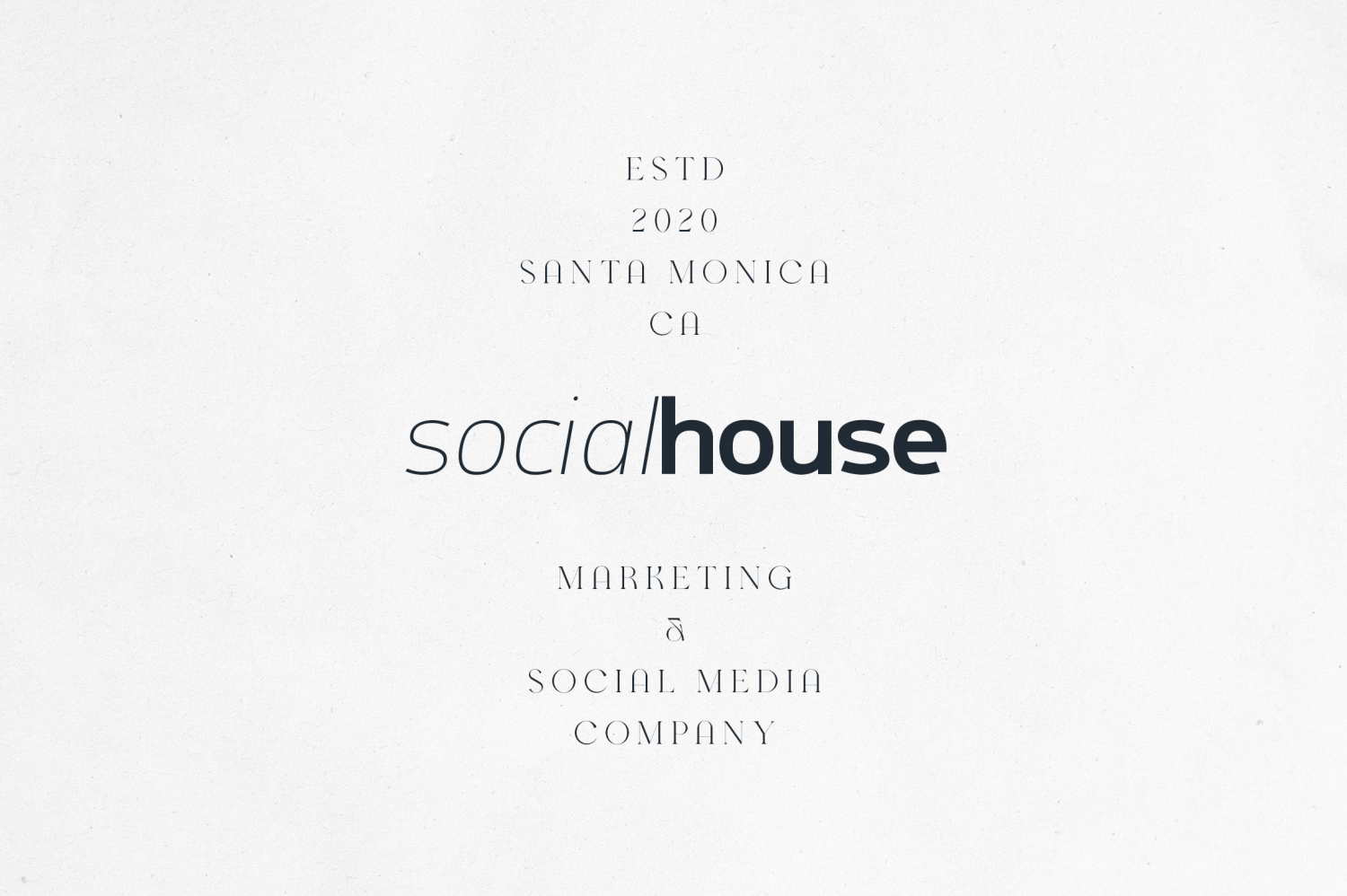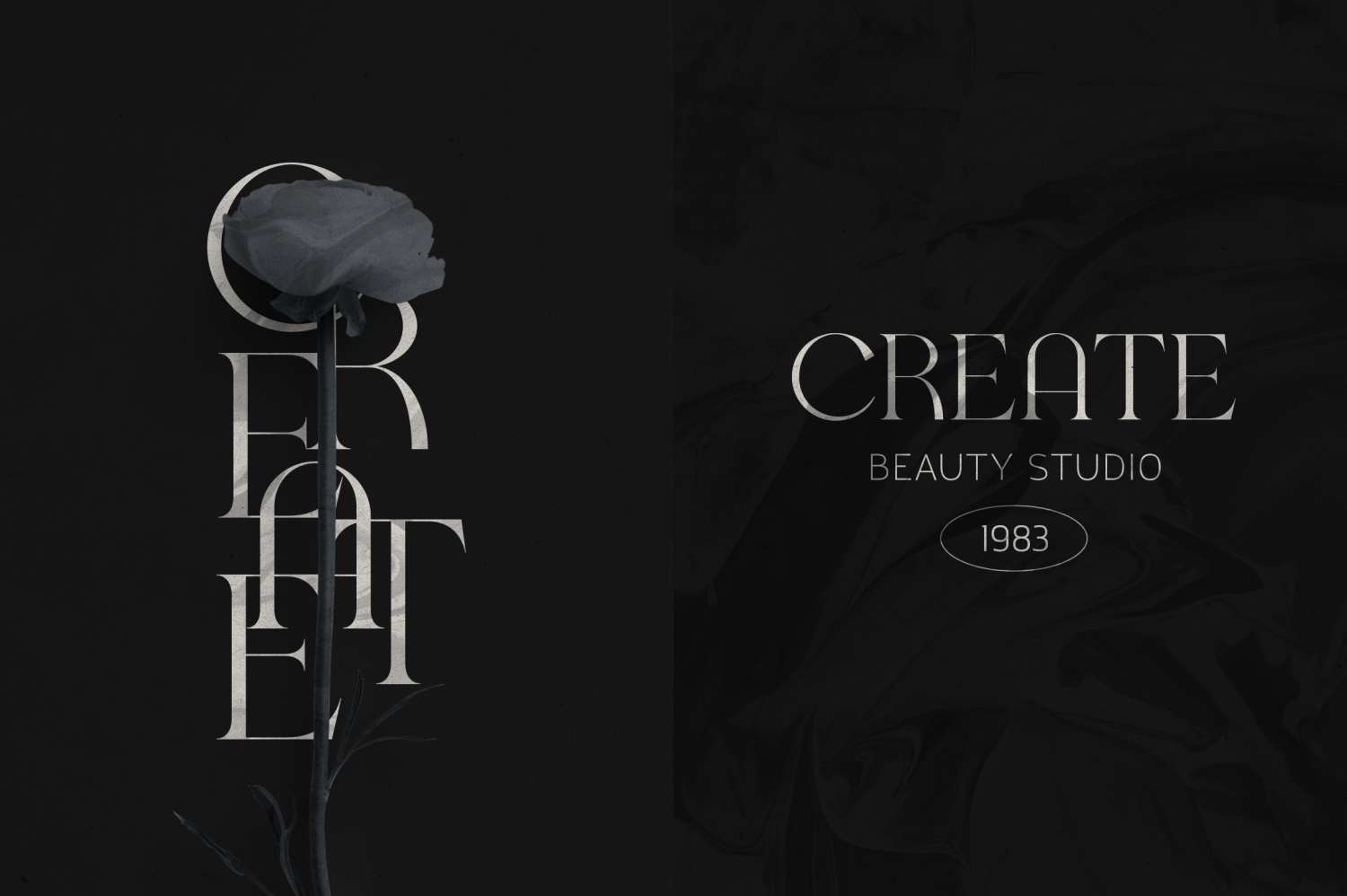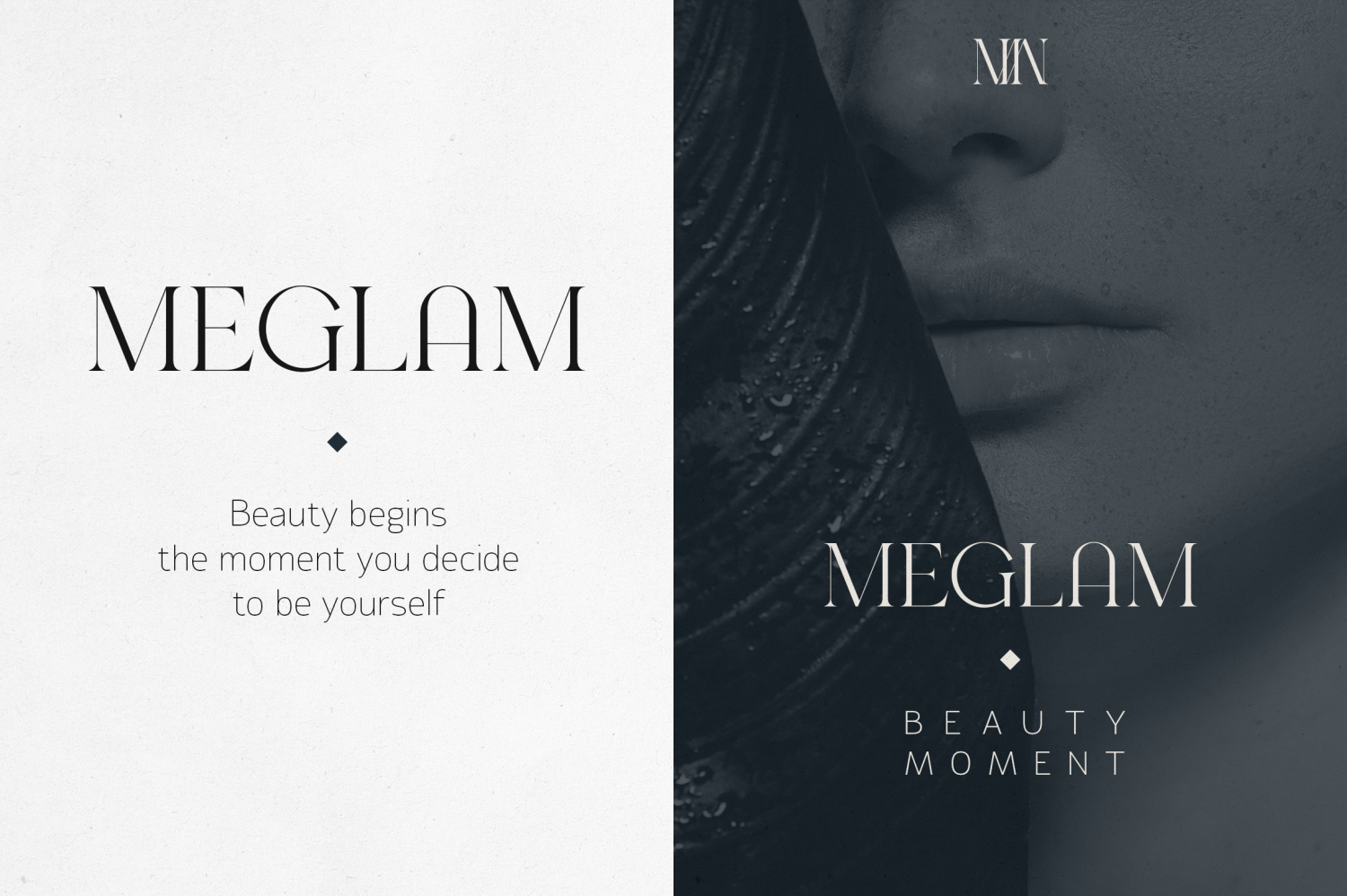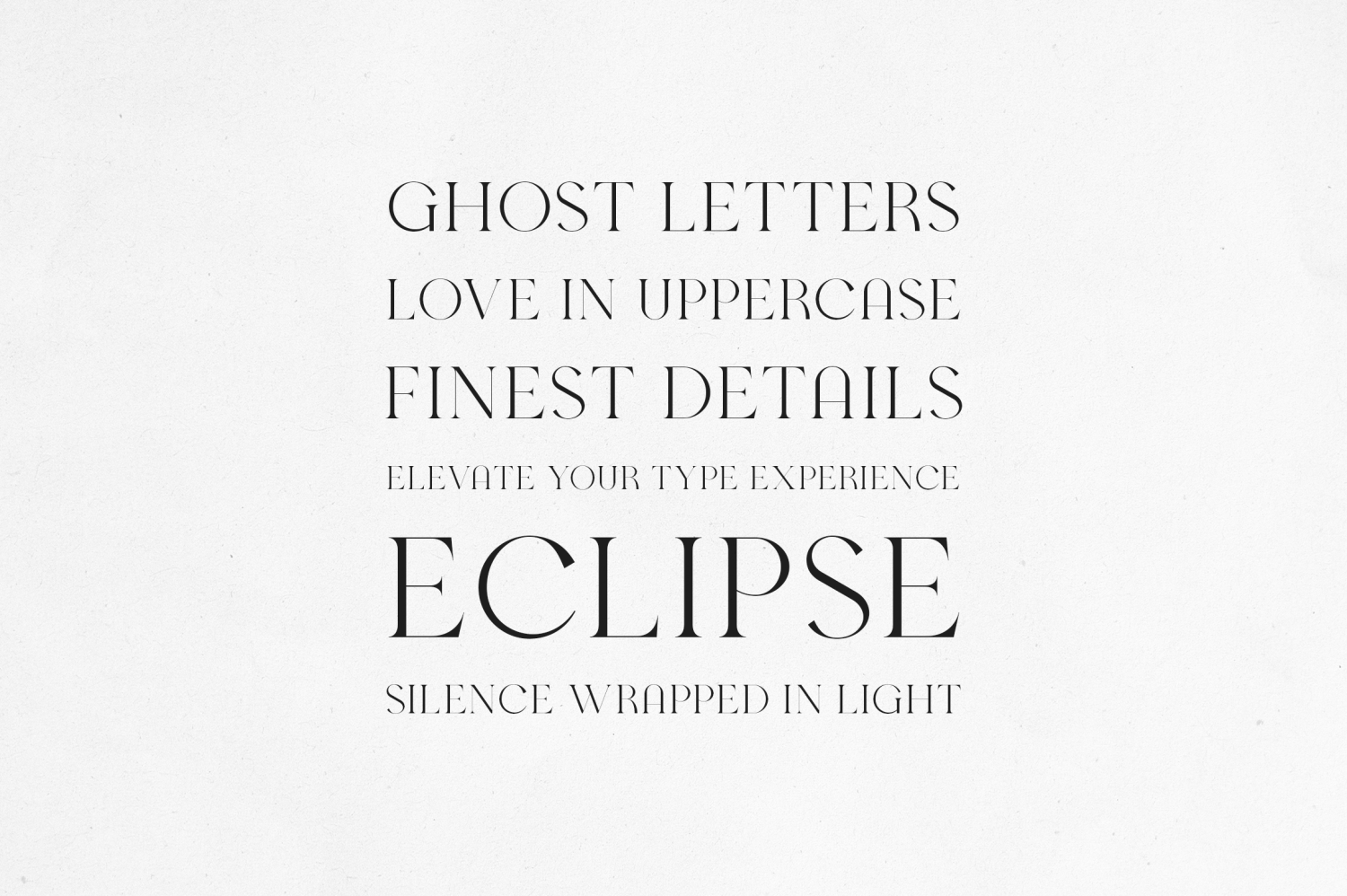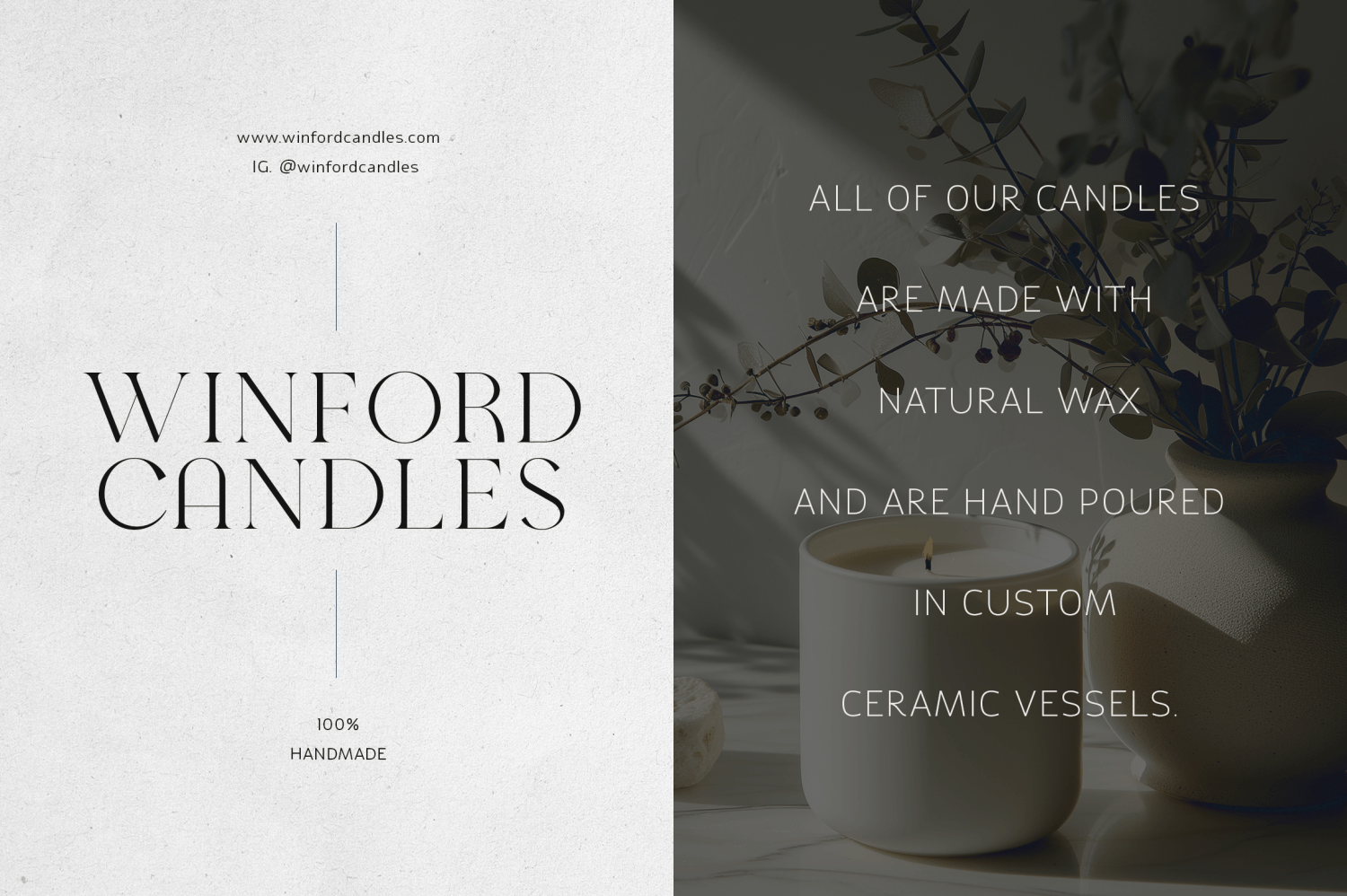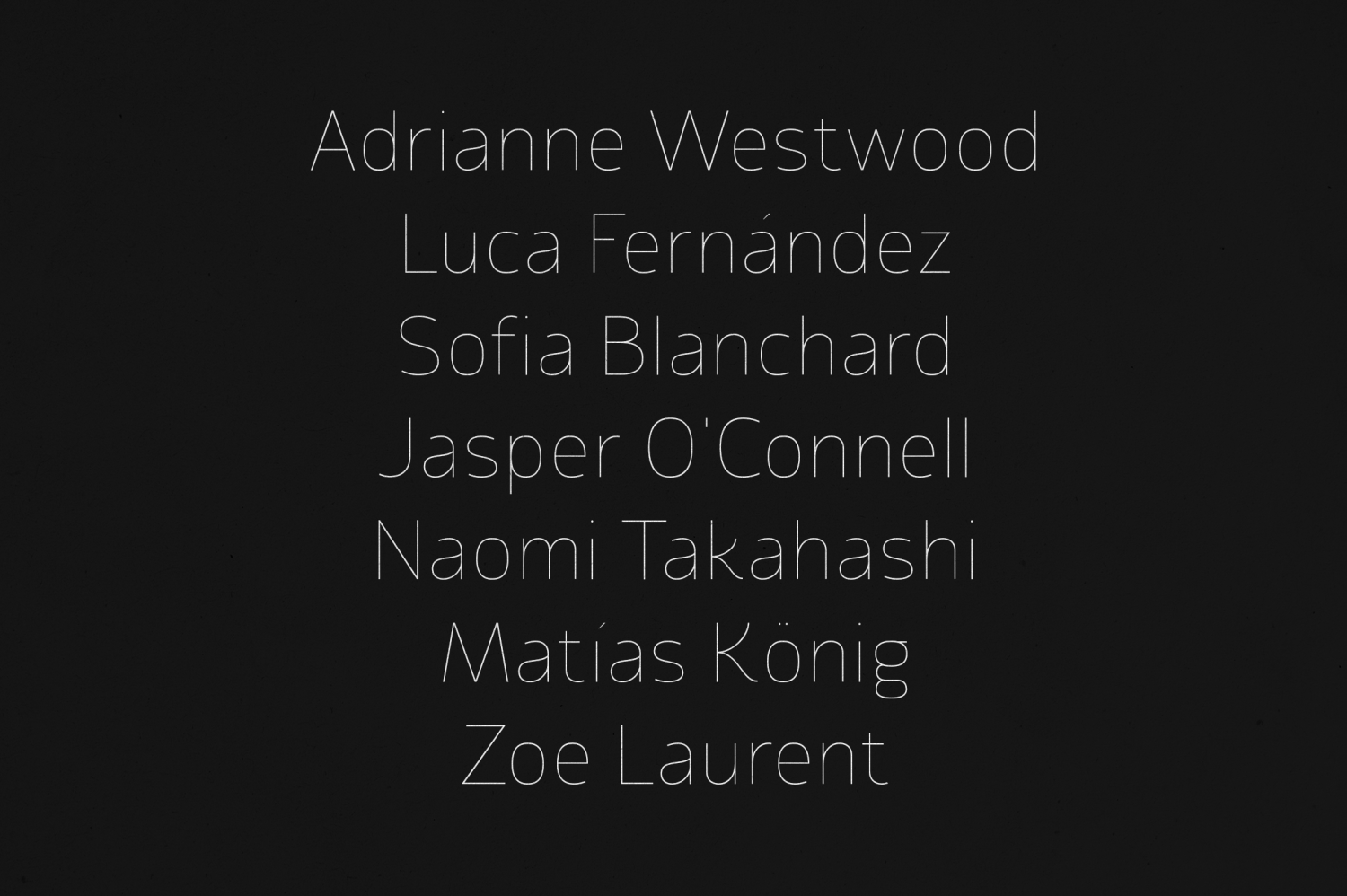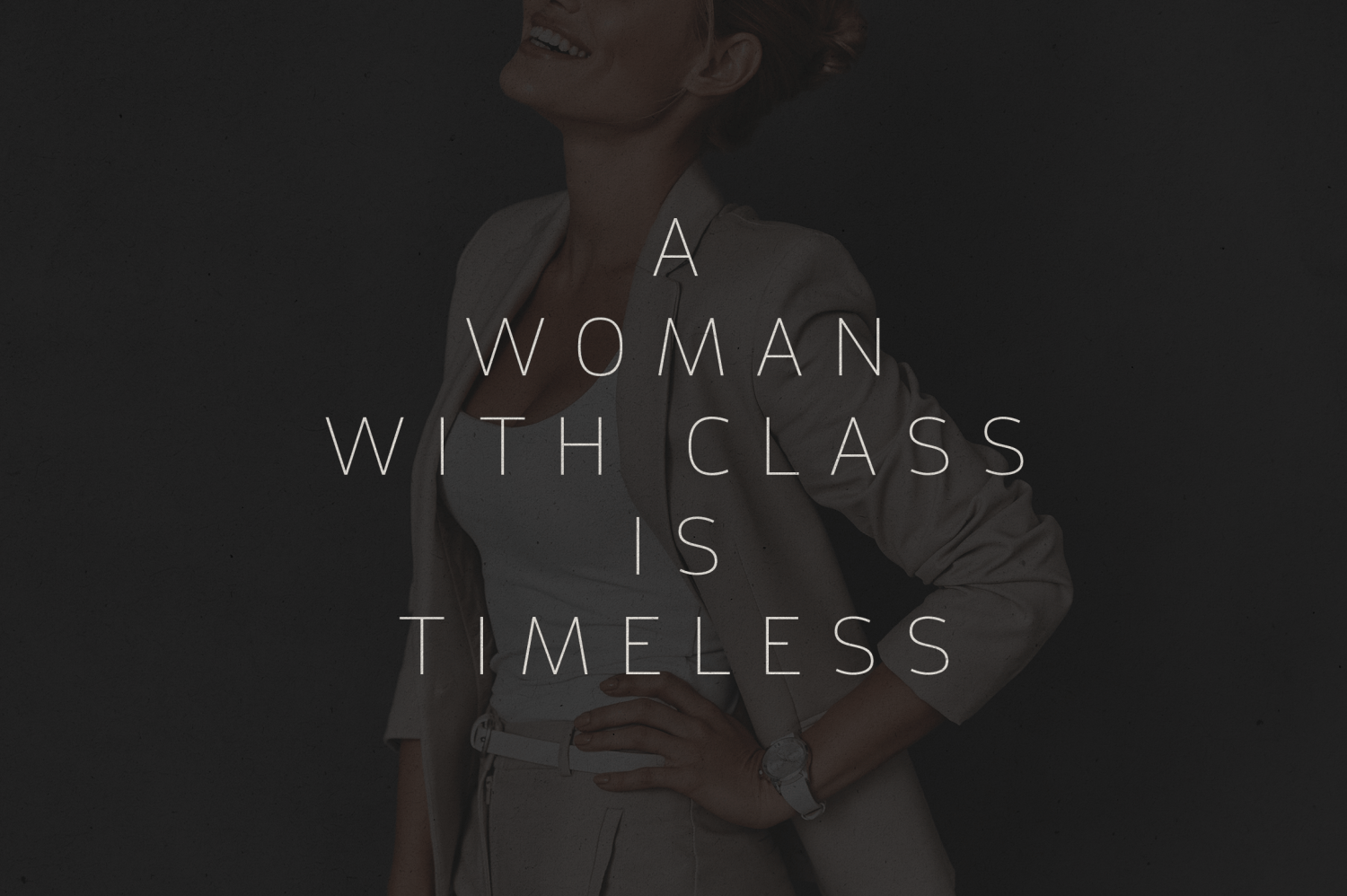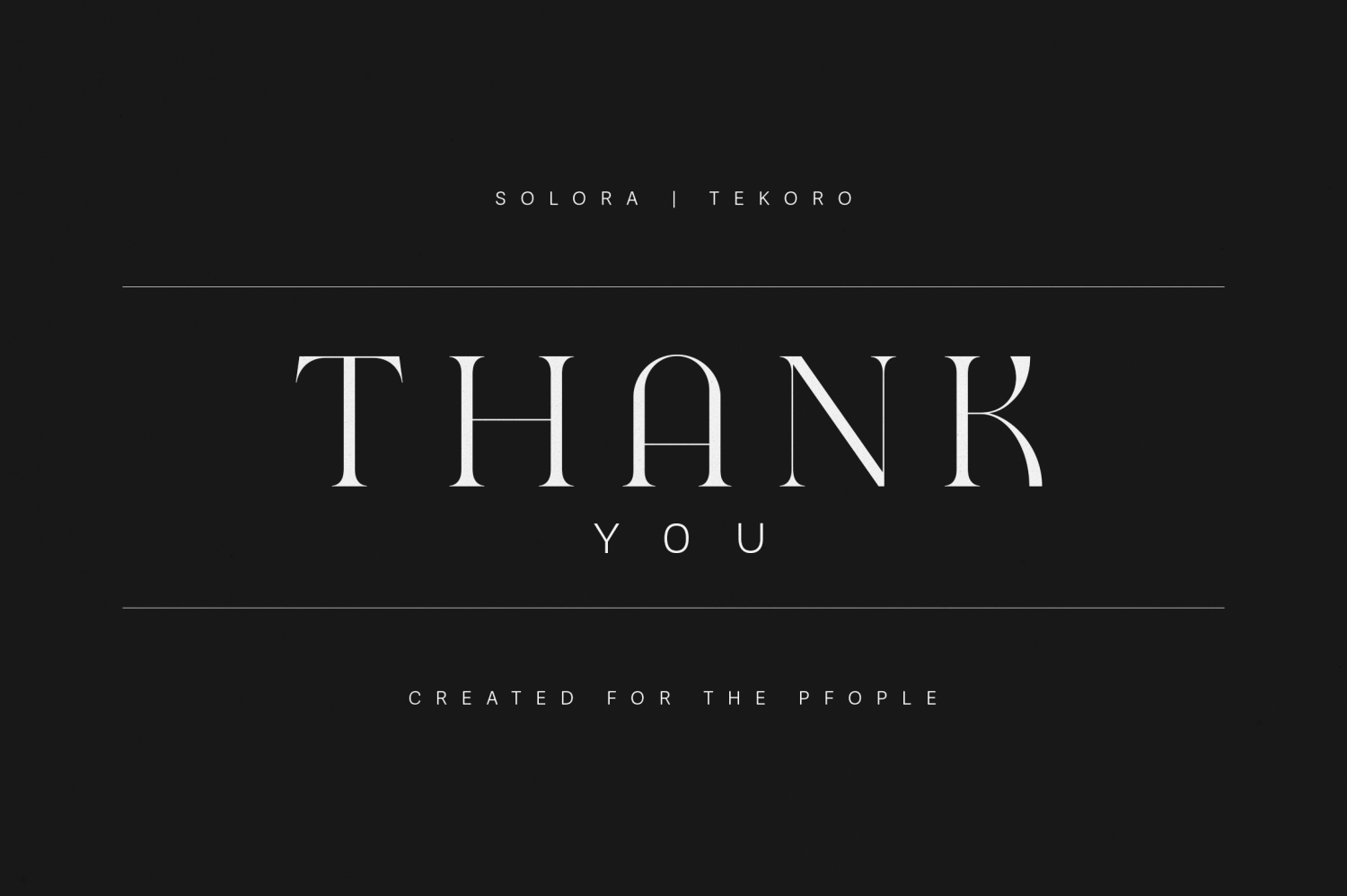
Solora & Tekoro
Solora & Tekoro is a sophisticated modern font duo that blends timeless elegance with sleek minimalism — perfect for luxury branding, fashion editorials, beauty packaging, lifestyle magazines, and upscale logos.
Solora is a refined serif that embodies grace and high-end aesthetics — with delicate curves, artistic proportions, and a whisper of classic charm. Tekoro complements it with a clean, contemporary sans-serif that adds balance, simplicity, and versatility. Together, they create a seamless visual harmony designed to elevate your brand presence.
This duo was crafted for designers who appreciate subtle detail and strong character — ideal for brand identities, wedding stationery, social media visuals, product packaging, and magazine layouts that demand a sense of modern luxury.
Features
- Two perfectly paired fonts: Solora (Serif) + Tekoro (Sans Serif)
- Elegant uppercase and lowercase letters
- Full multilingual support (87+ languages)
- Perfect for logos, posters, invitations, beauty branding, and web design
Why You’ll Love It
Solora & Tekoro isn’t just a font duo — it’s a visual experience. From boutique logos to luxury packaging, it gives every design a polished and editorial touch. Whether you’re designing for a modern brand, creative agency, or high-end boutique, this typeface duo ensures your project feels authentic, elevated, and unforgettable.